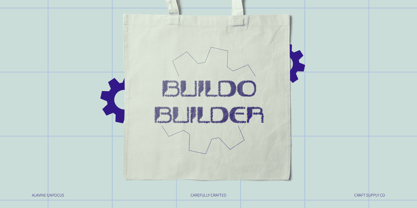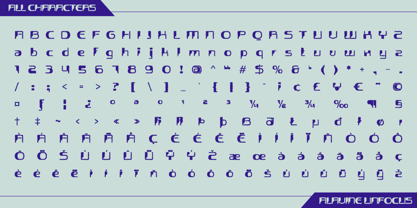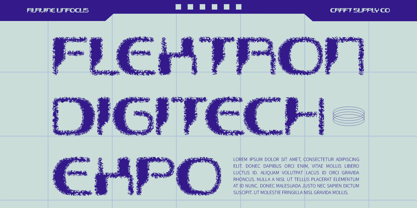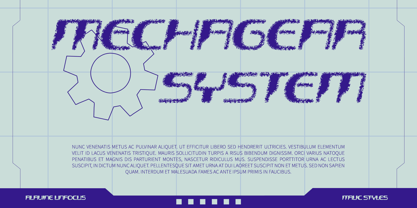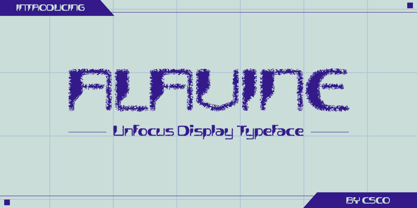
Alavine Unfocus
by Craft Supply Co
The Alavine Unfocus Font Family was designed by Trio Nazzar Saputra, Wahyu Hadi Yuana and published by Craft Supply Co. Alavine Unfocus contains 2 styles and family package options. More about this family
Alavine Unfocus Font: A Futuristic Blend of Innovation and Style
Display Font with Unfocus Effect
Alavine Unfocus is a cutting-edge display font that merges futuristic aesthetics with an innovative unfocus effect. The sleek and blurred edges create a sense of fluidity and motion, making this font perfect for projects where bold creativity meets modern technology.
Futuristic Design for Tech and Digital Projects
With its futuristic design, Alavine Unfocus excels in tech-related projects, digital media, and sci-fi themed designs. Its forward-thinking look effortlessly conveys innovation, making it a go-to font for cutting-edge brands and creative agencies. Whether you’re working on a technology startup logo, an app interface, or a digital marketing campaign, Alavine Unfocus delivers the modern touch your project needs.
Unfocus Effect for Depth and Visual Impact
The unique unfocus effect adds an extra layer of visual intrigue, offering depth and texture to the clean, geometric letterforms. This blur effect gives the font an ethereal quality, drawing attention and adding a futuristic, almost holographic feel. It’s ideal for creating standout logos, eye-catching posters, or web designs that aim to push creative boundaries.